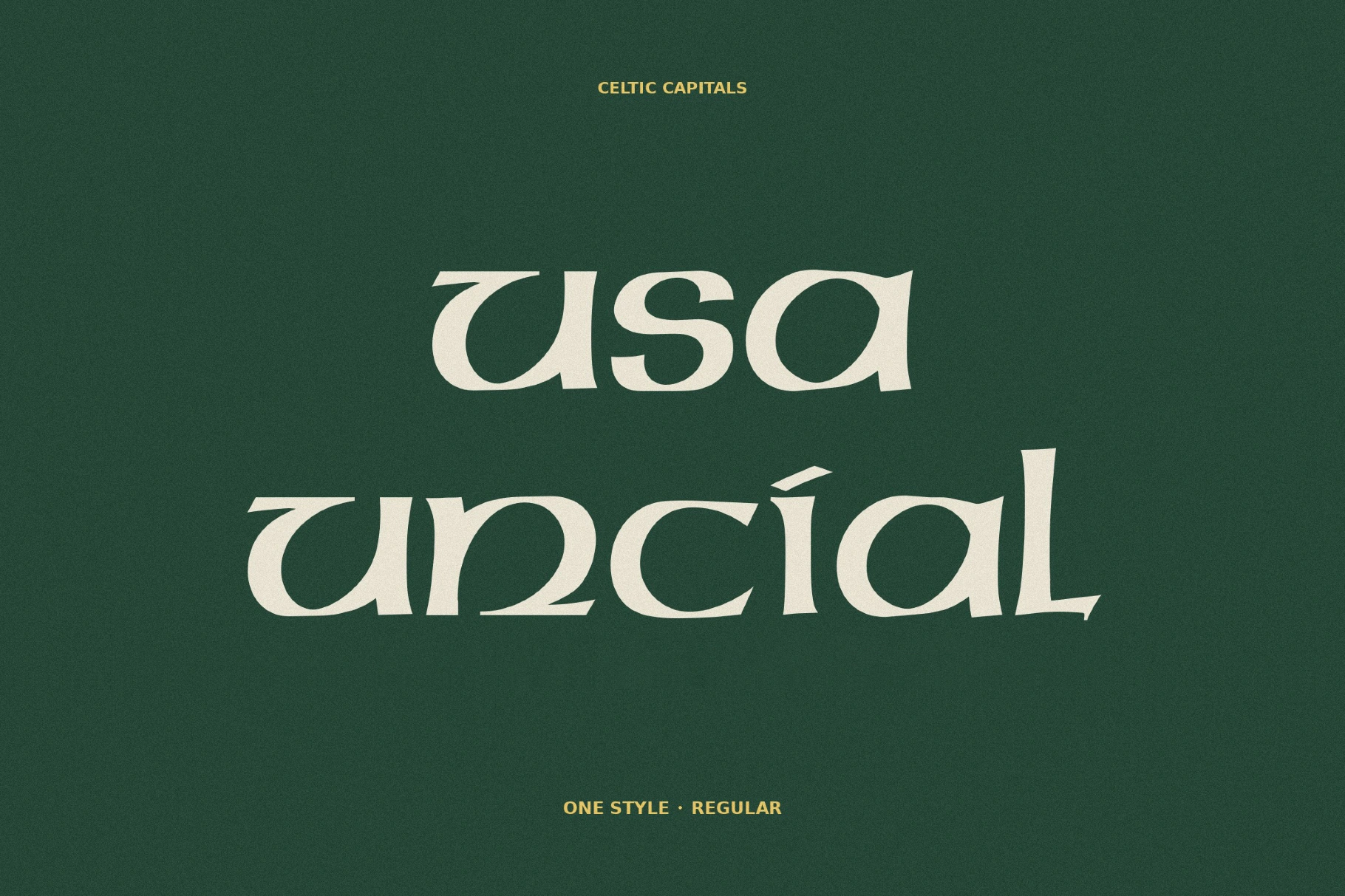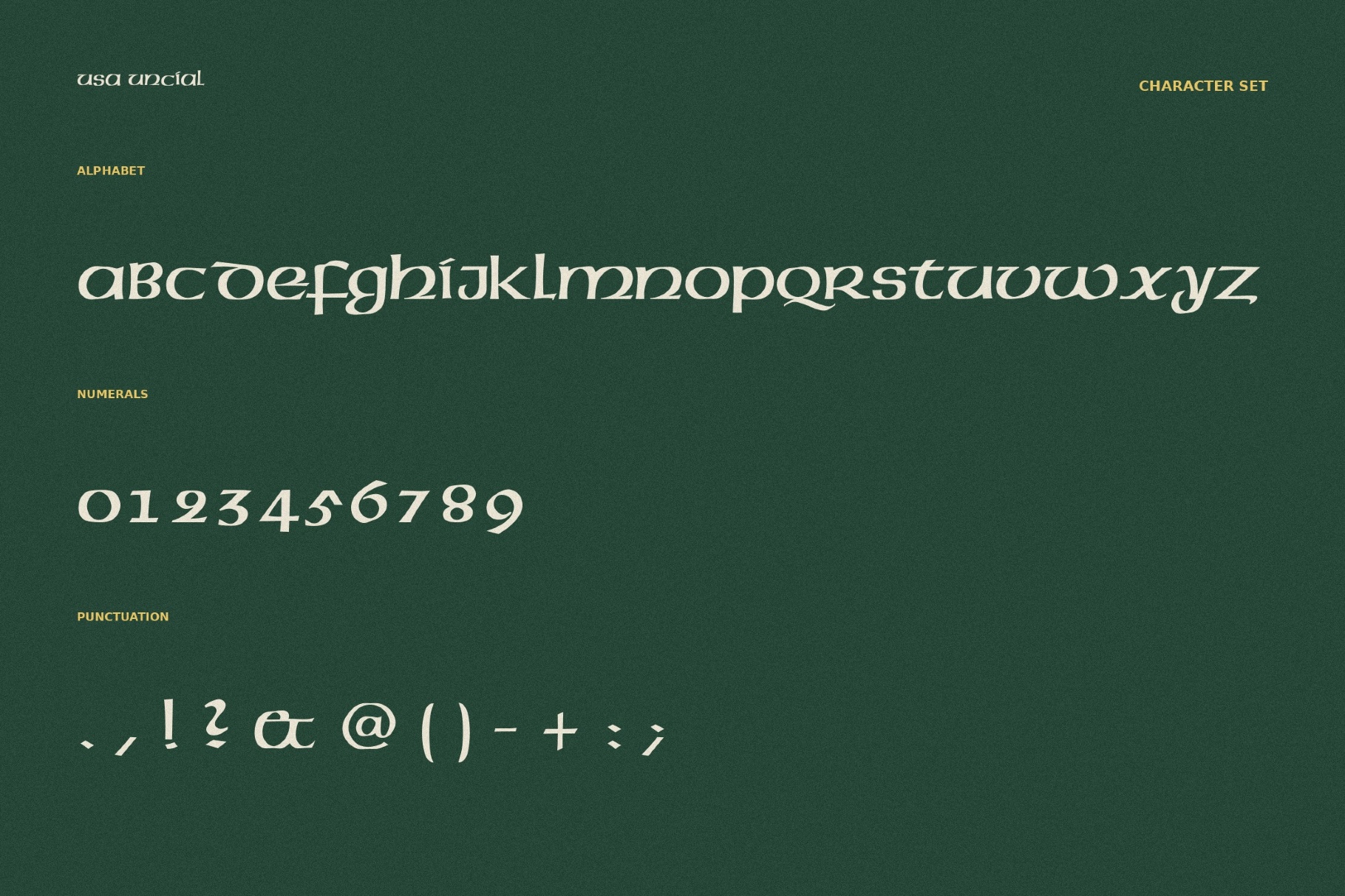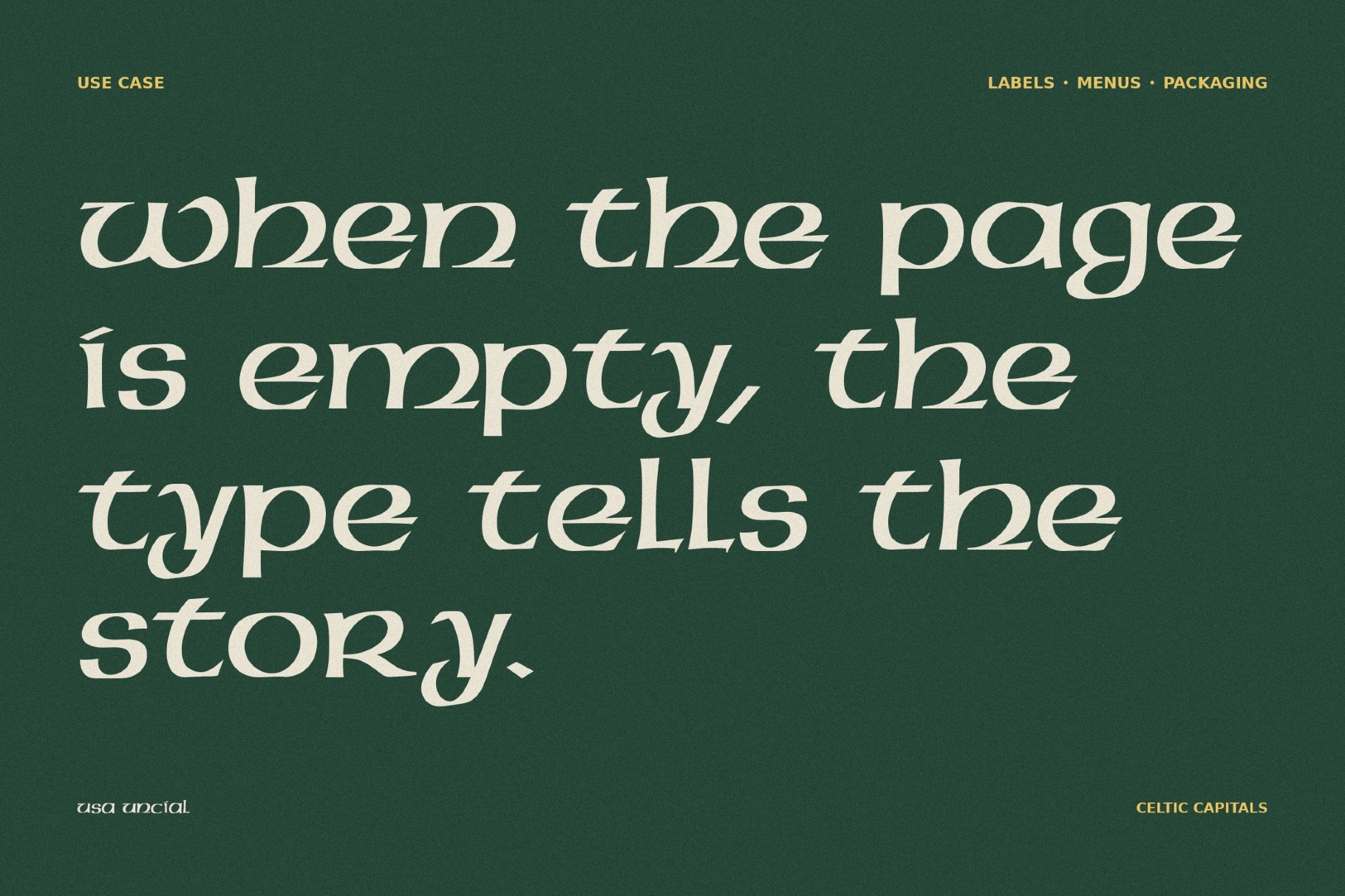
USA Uncial Font
QTUSA-Uncial
Ornamental uncial capitals bring this Carolingian fantasy font into the territory of illuminated initials, monastic page openings, and calligraphic borders. Medieval pen rhythm, decorative curves, and manuscript detailing make it ideal for fantasy covers, heritage branding, museum posters, wedding stationery, wine labels, folk festival graphics, editorial drop caps, invitation suites, and packaging.